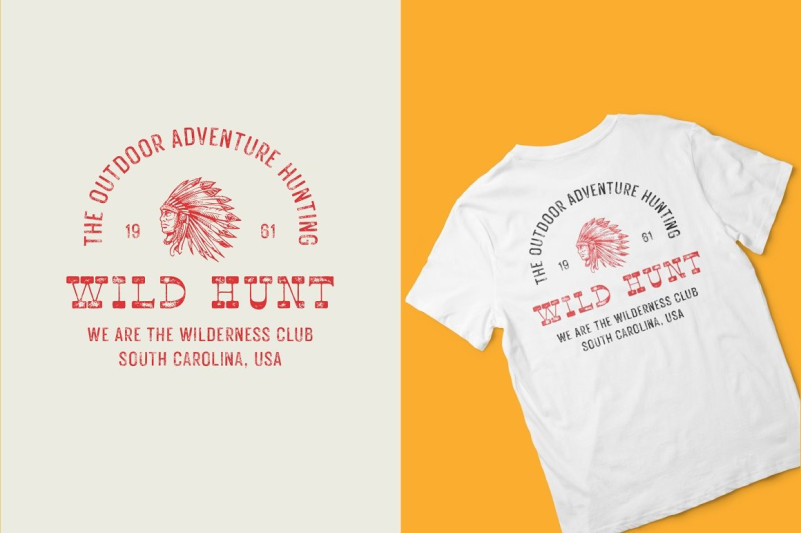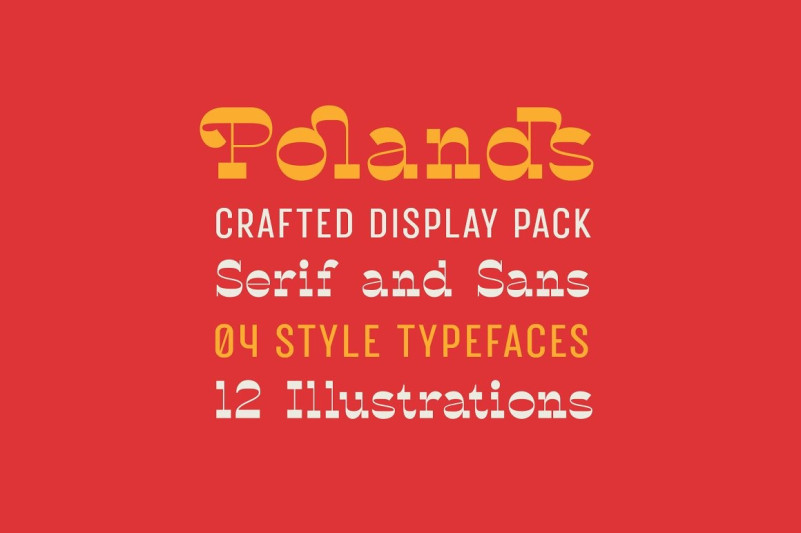
Polands Caps
Polands Caps Font, it is a reverse contrast display for crafted fonts. These collections contain serif and sans serif font. Every font comes with 4 style typefaces (regular, rounded, rough and textured). This slab serif font includes some alternates and ligatures. The Polands matches apply in some designs such as the logo, poster, label, badge, packaging, t-shirt, branding, quotes and more custom design.
Polands features :
4 style typefaces (regular, rounded, rough and textured)
Uppercase, lowercase, numeral, symbol, punctuation, 2 set alternates and 38 ligature in slab serif font
All-caps, numeral, symbol and punctuation in sans serif font